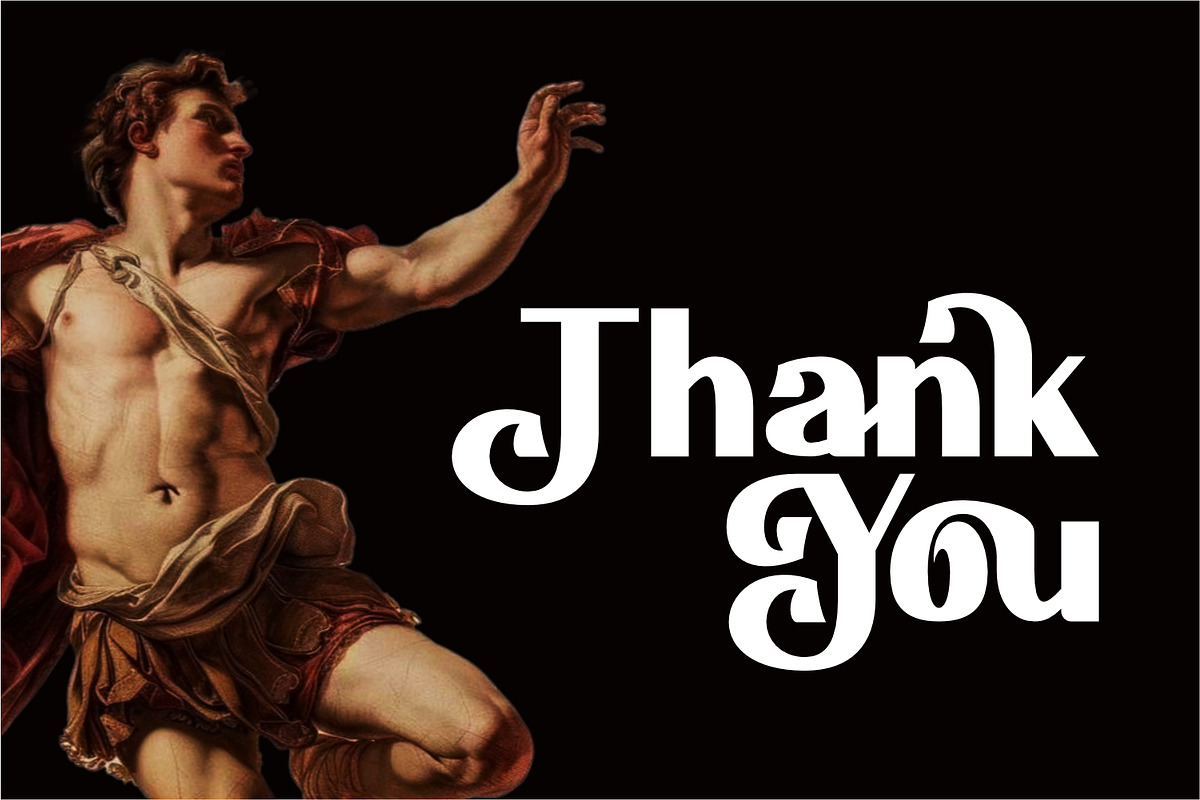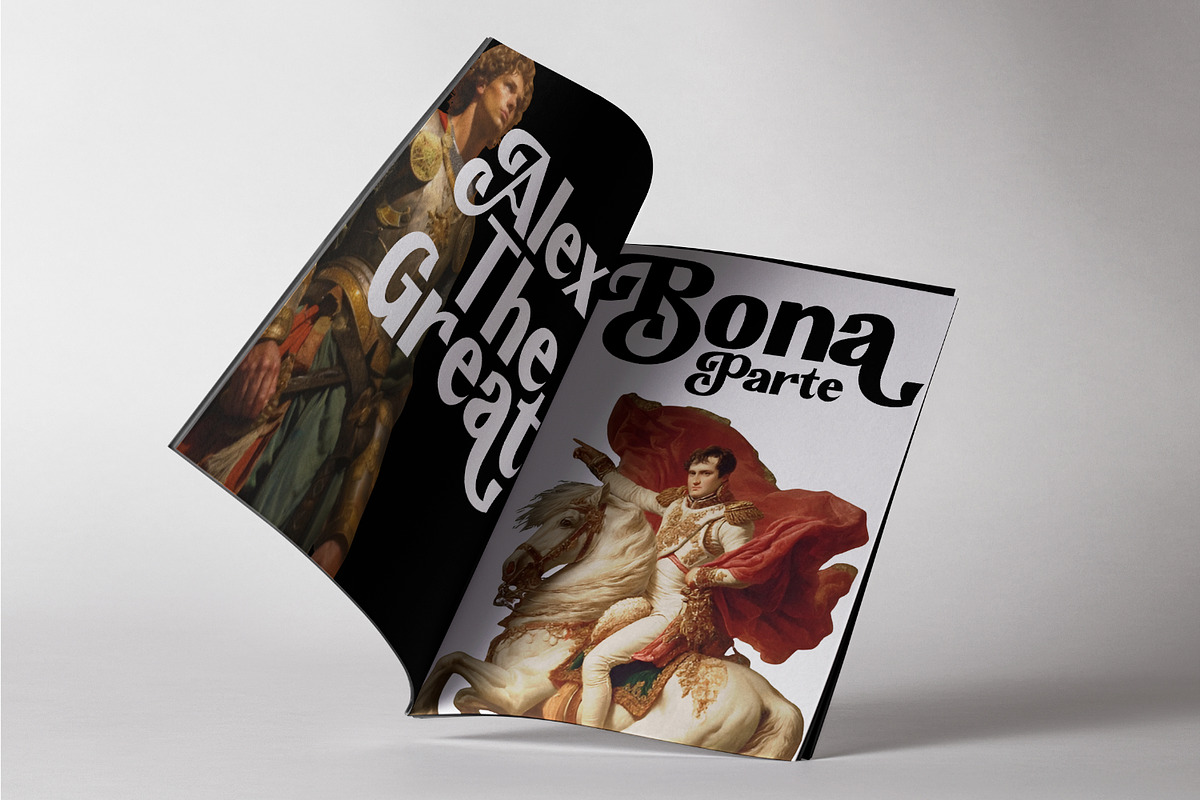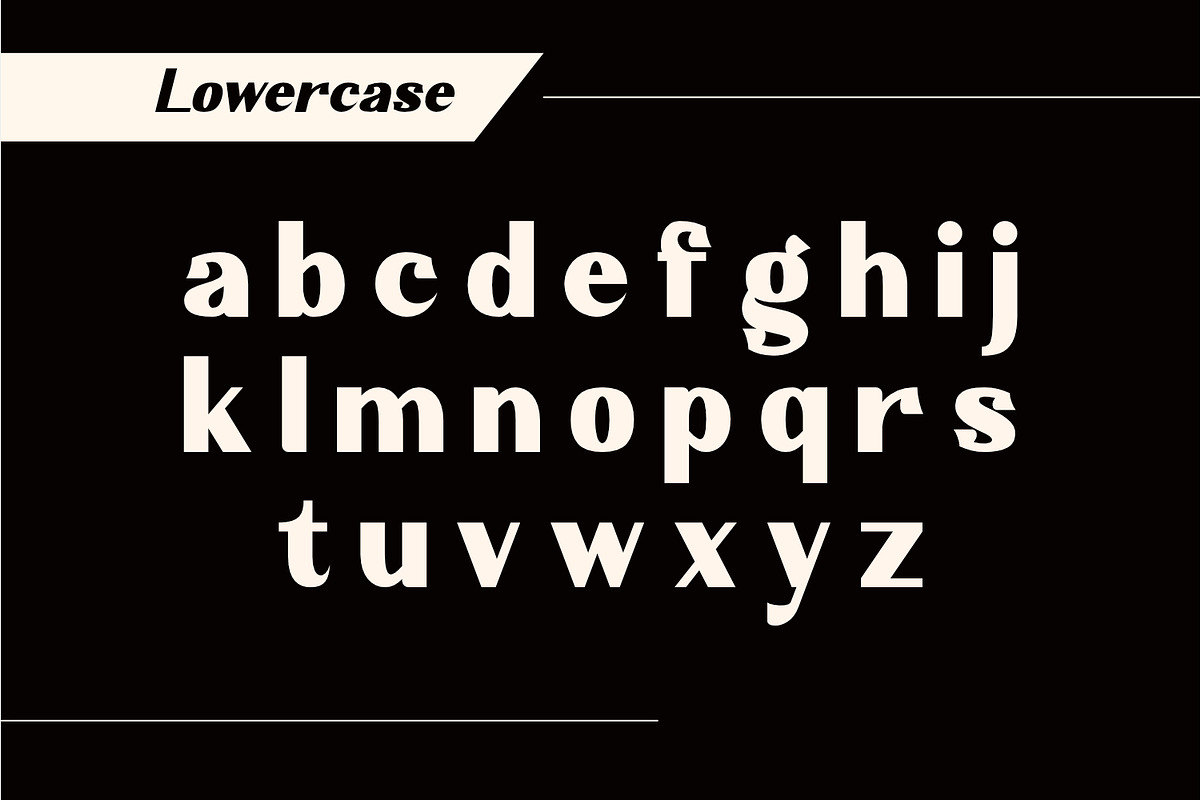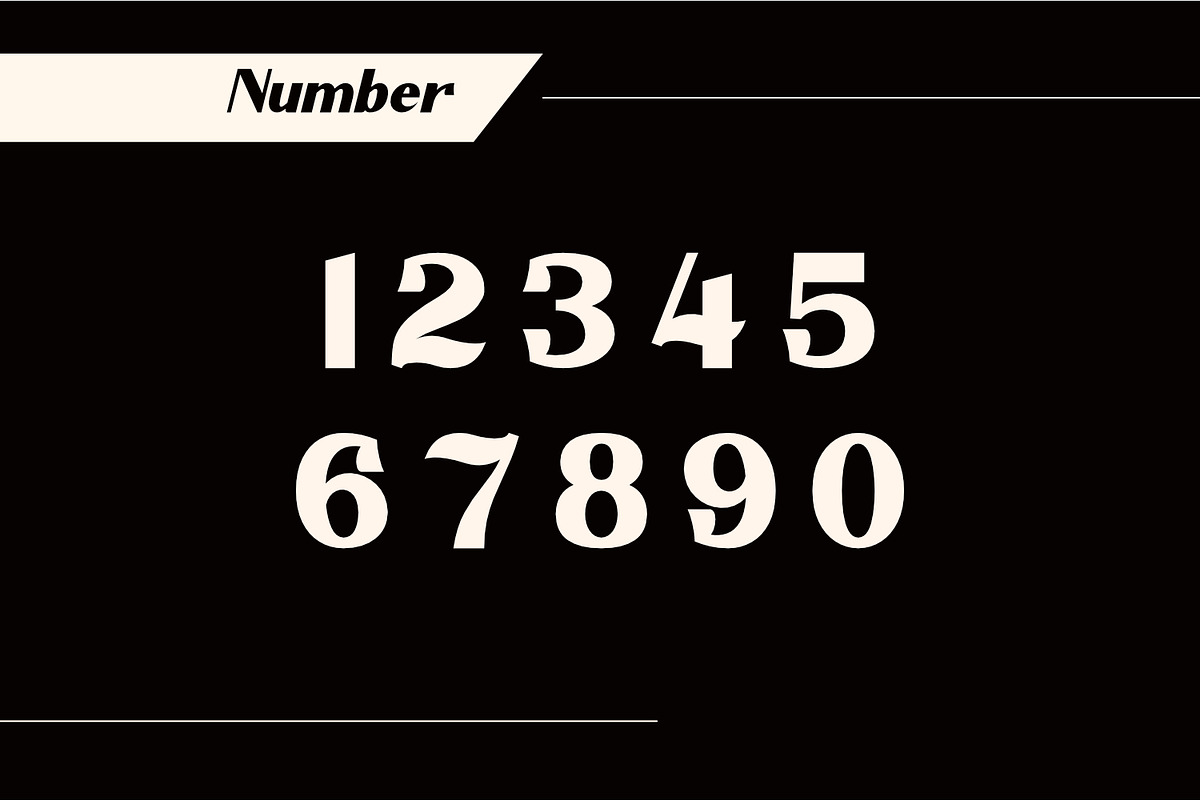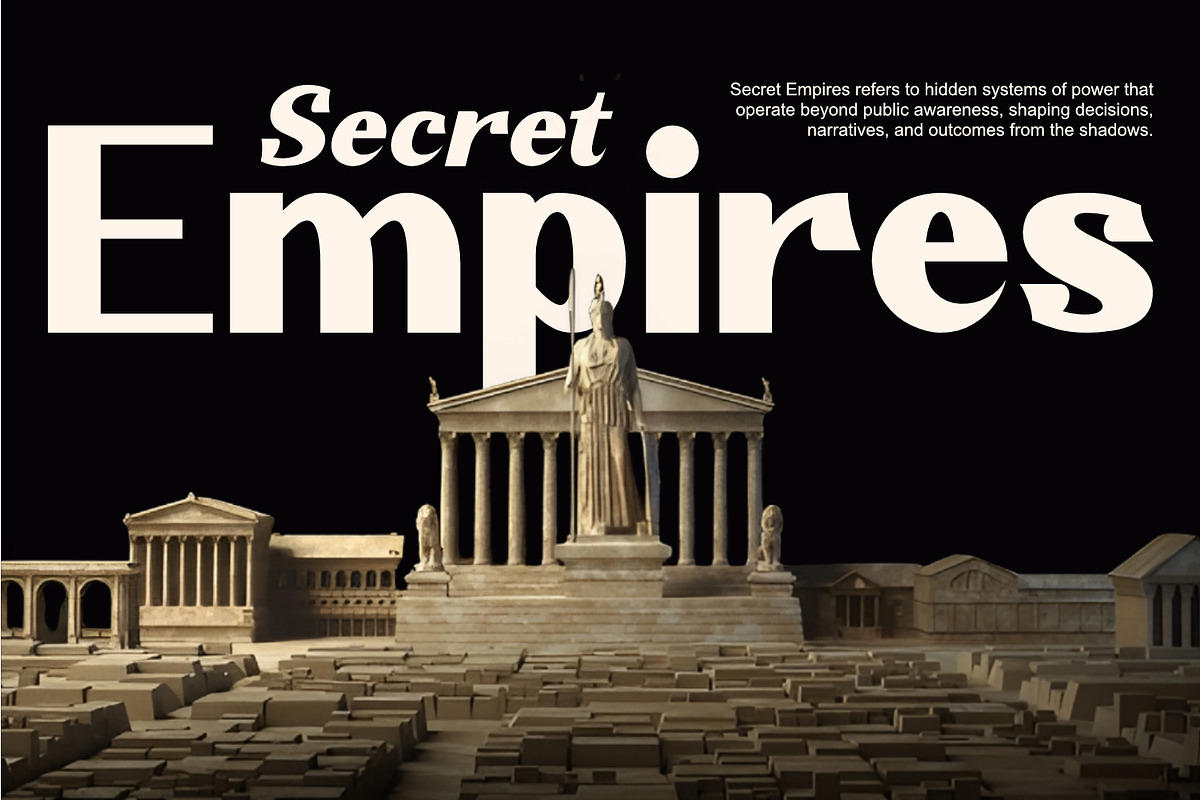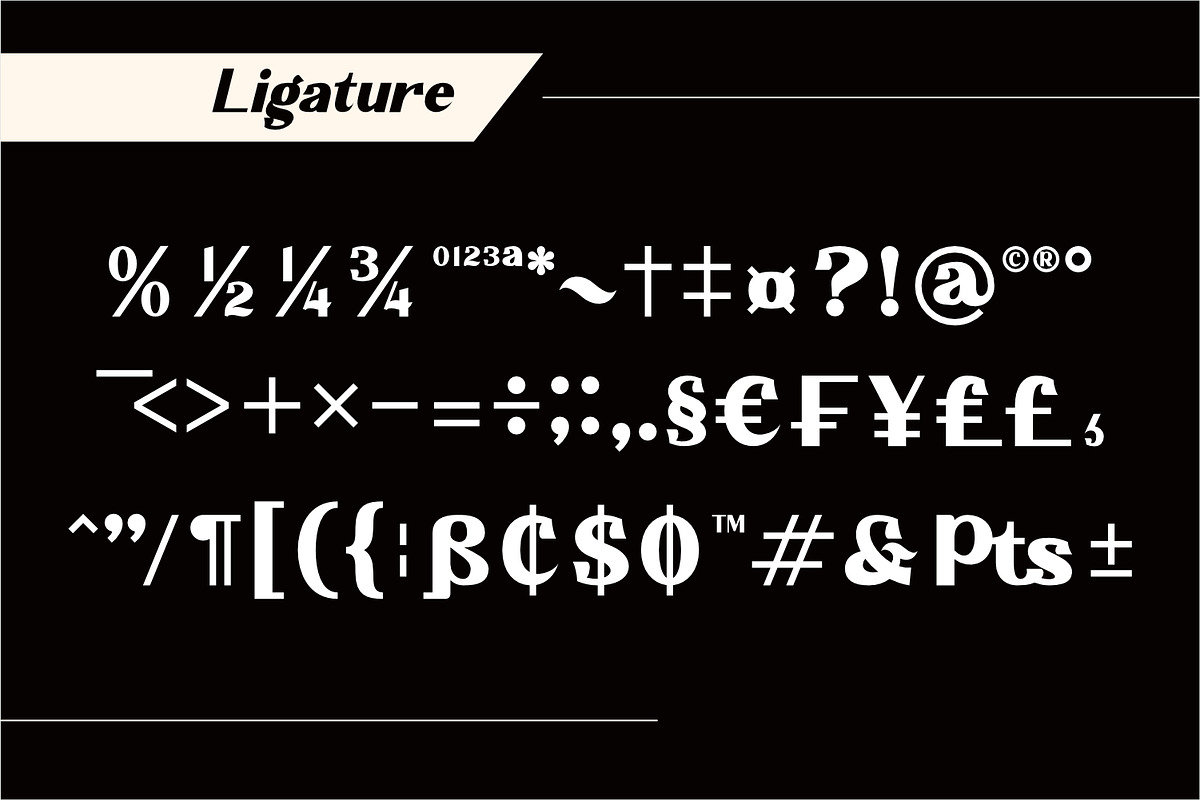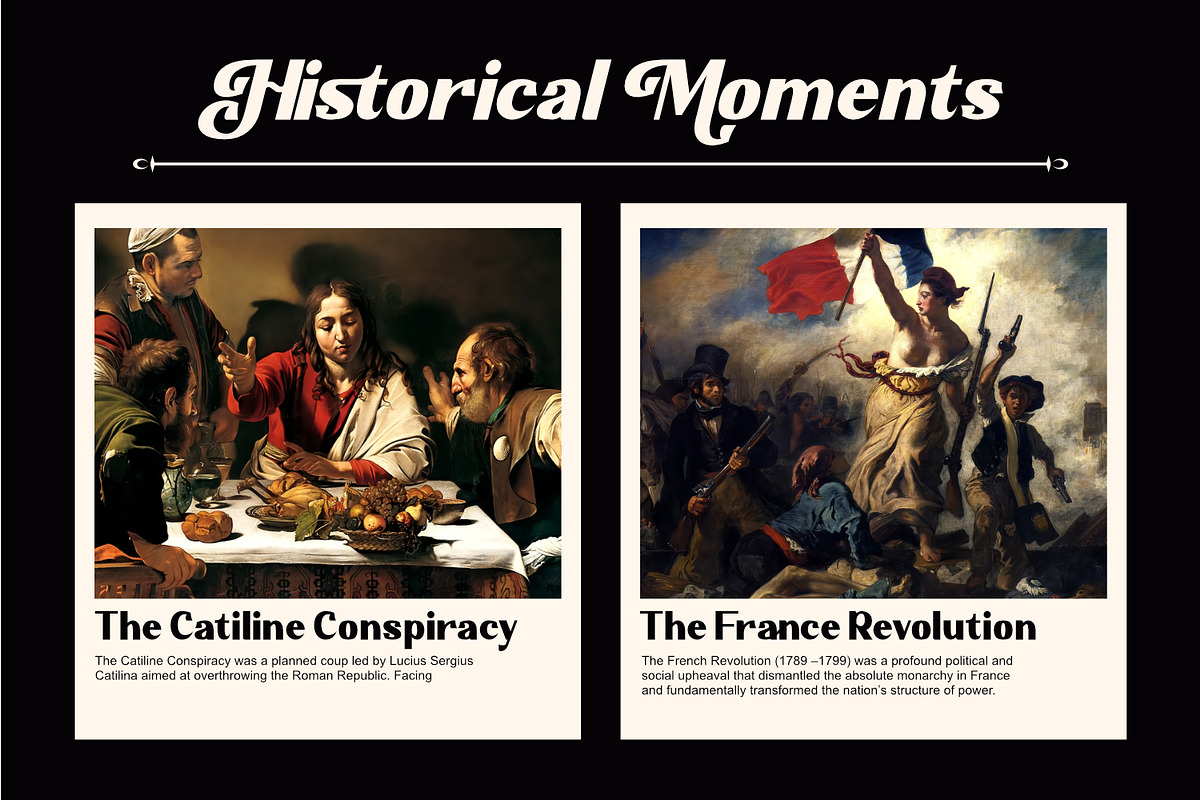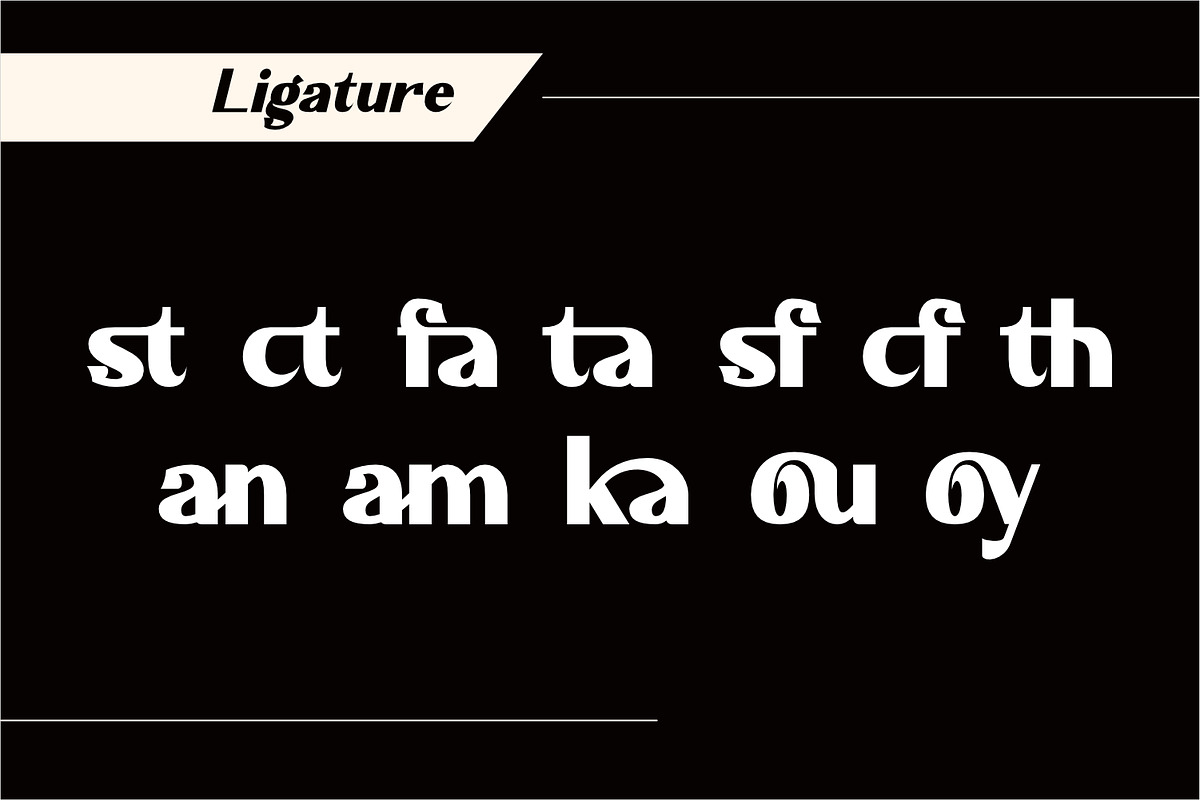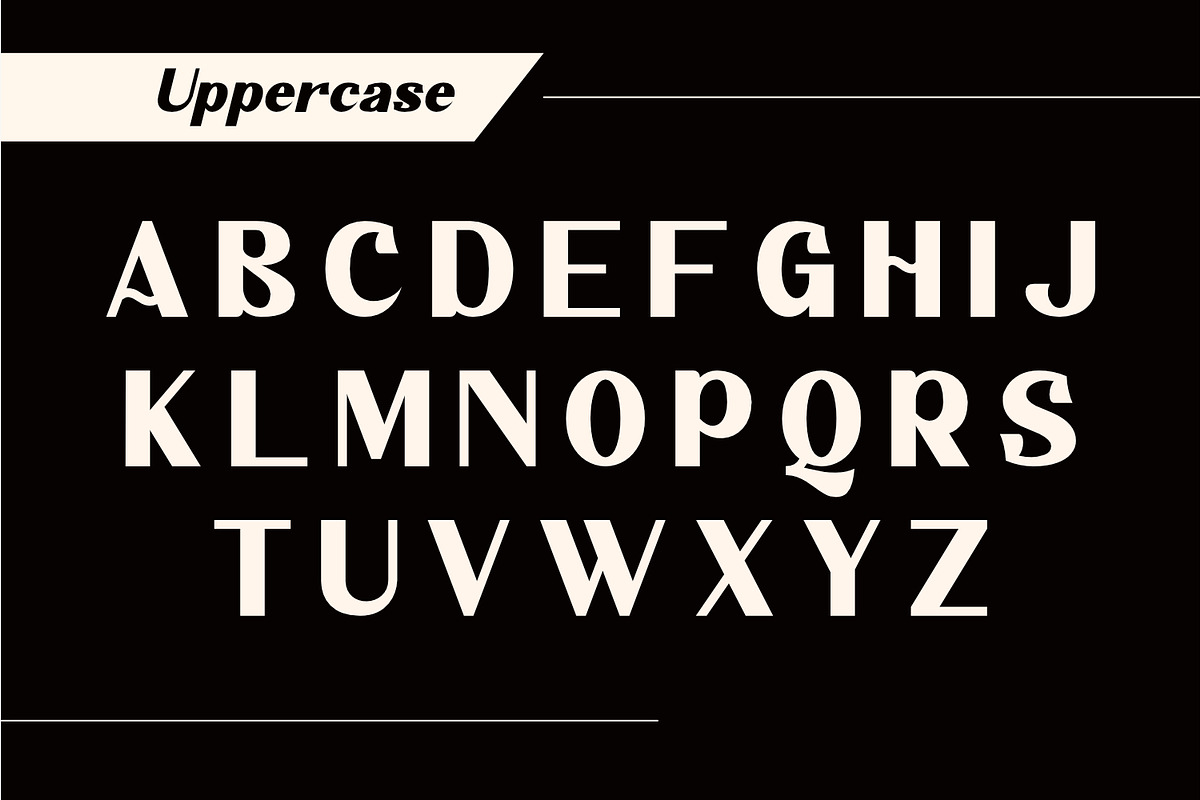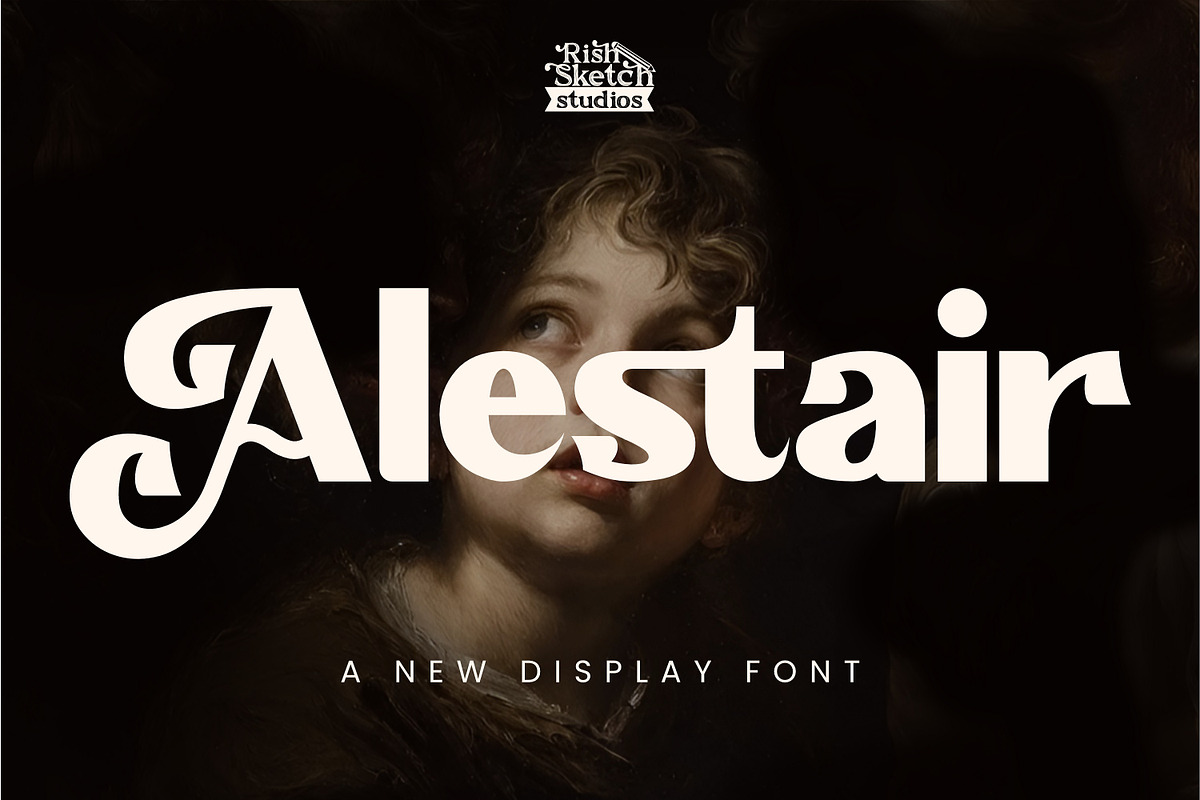
Alestair - Sans Serif Display Font
Alestair - Modern Display Font, from Rishsketch Studios, is a premium Modern Display Font, perfect for any project that requires a distinctive, and premium feel.
Ligature, Alternate & Multilingual